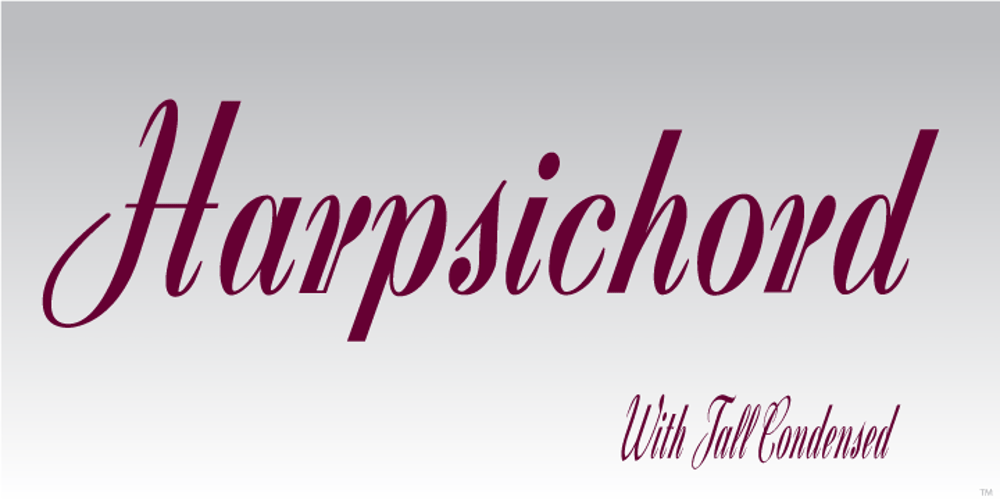
Harpsichord
Harpsichord font
Harpsichord Font Family was designed by Lucian Bernhard and published by Jonahfonts. Harpsichord contains 2 styles and family package options. Harpsichord (as I have named it) is from the late 1940s and was designed at Lucian Bernhard Studios in New York for Bernhard’s Magnetype Collection. It was originally published as ‘Community Low’ along with ‘Community Condensed’. Many of his Magnetype Fonts have been dormant which I hope to revive in the near future.